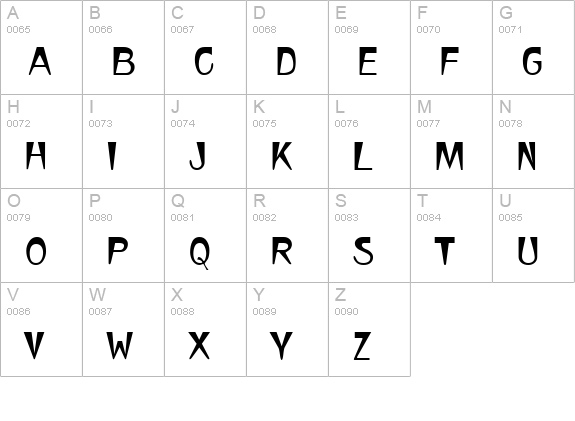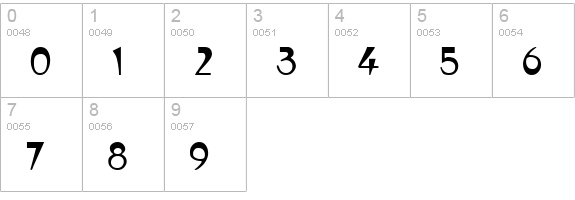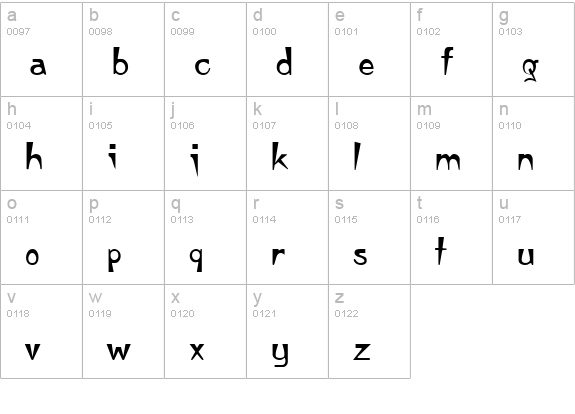
Stylus Regular is the standard, neutral variant in the Stylus typeface family \xE2\x80\x94 well suited to general body text, paragraphs, and standard typographic work.
Stylus Regular font is a versatile and modern typeface that exudes elegance and sophistication. With its clean lines and timeless design, this font is perfect for a wide range of projects, from branding to editorial design. The sleek and streamlined look of Stylus Regular makes it a great choice for both digital and print applications. What sets Stylus Regular apart is not only its striking aesthetic appeal but also its availability as a free download. You can easily access and use this font for your creative projects without any cost. Simply head over to FontsMarket.com to download Stylus Regular and add a touch of refinement to your designs.